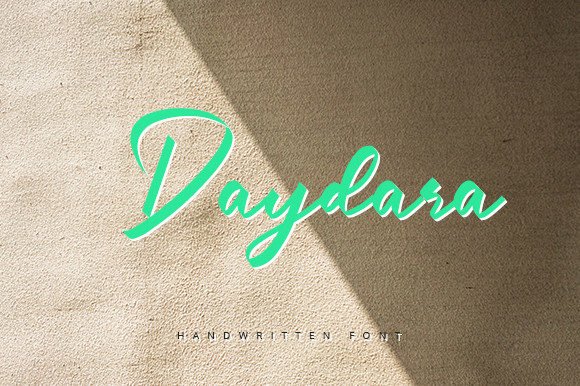
Introduction to Daydara Font
Daydara is a beautiful and casual handwritten font with a unique feel and a trendy impact.
It will add a relaxed touch to any design project that you wish to create .